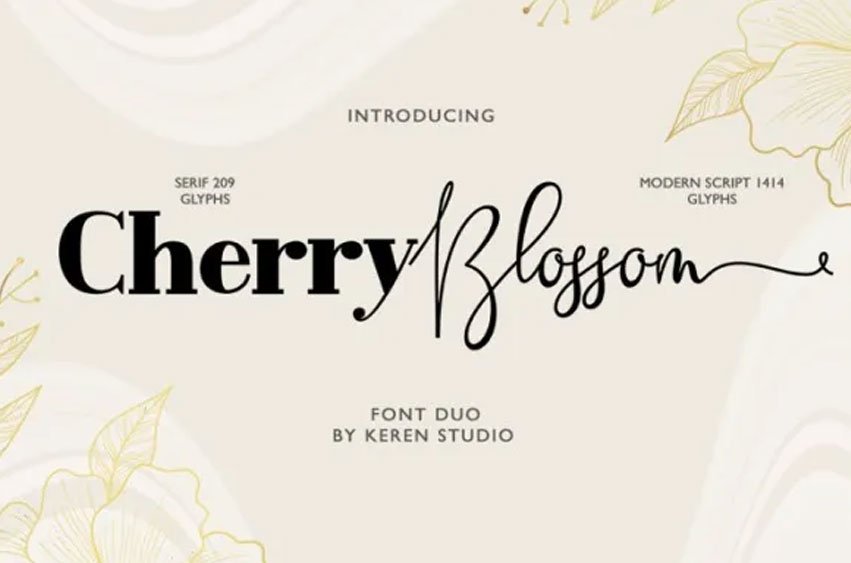
Cherry Blossom Font
Cherry Blossom Font Duo is a duo styled handwritten font which feels equally charming and delicate. This font is PUA encoded which means you can access all of the glyphs and swashes with ease! Cherry Blossom Font Duo will turn any creative idea into a standout.
Cherry Blossom Font Duo looks lovely on wedding invitations, thank you cards, quotes, greeting cards, logos, business cards and more. Perfect for using in ink or watercolour. Including initial and terminal letters, alternates, ligatures and multiple language support.